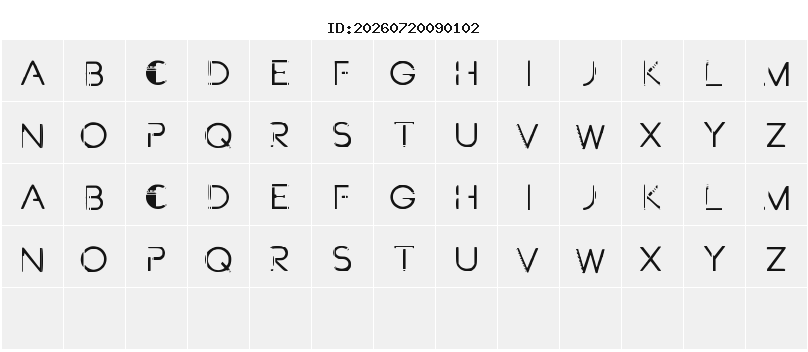
• Font Name: FuturePaint
• Full Font Name: FuturePaint
About FuturePaint.ttf
FuturePaint.ttf is a modern, elegant sans-serif font designed for ultimate readability and visual harmony. Perfect for branding, headlines, web design, and print materials.